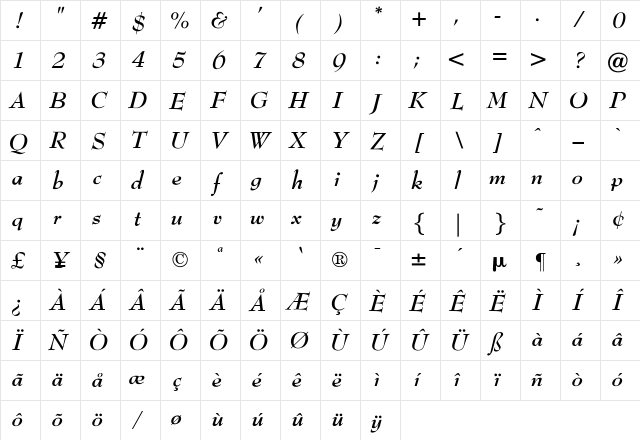
OPTIBenjieModern Regular Free Font
OPTIBenjieModern Regular
Foundry: Copr. Castcraft Software, Inc
Complete OPTIBenjieModern Regular glyph index. Displaying only characters natively supported by OPTIBenjieModern Regular font.
Design Context for OPTIBenjieModern
OPTIBenjieModern is a composed and adaptable typeface that performs quietly and consistently across a wide range of design contexts.